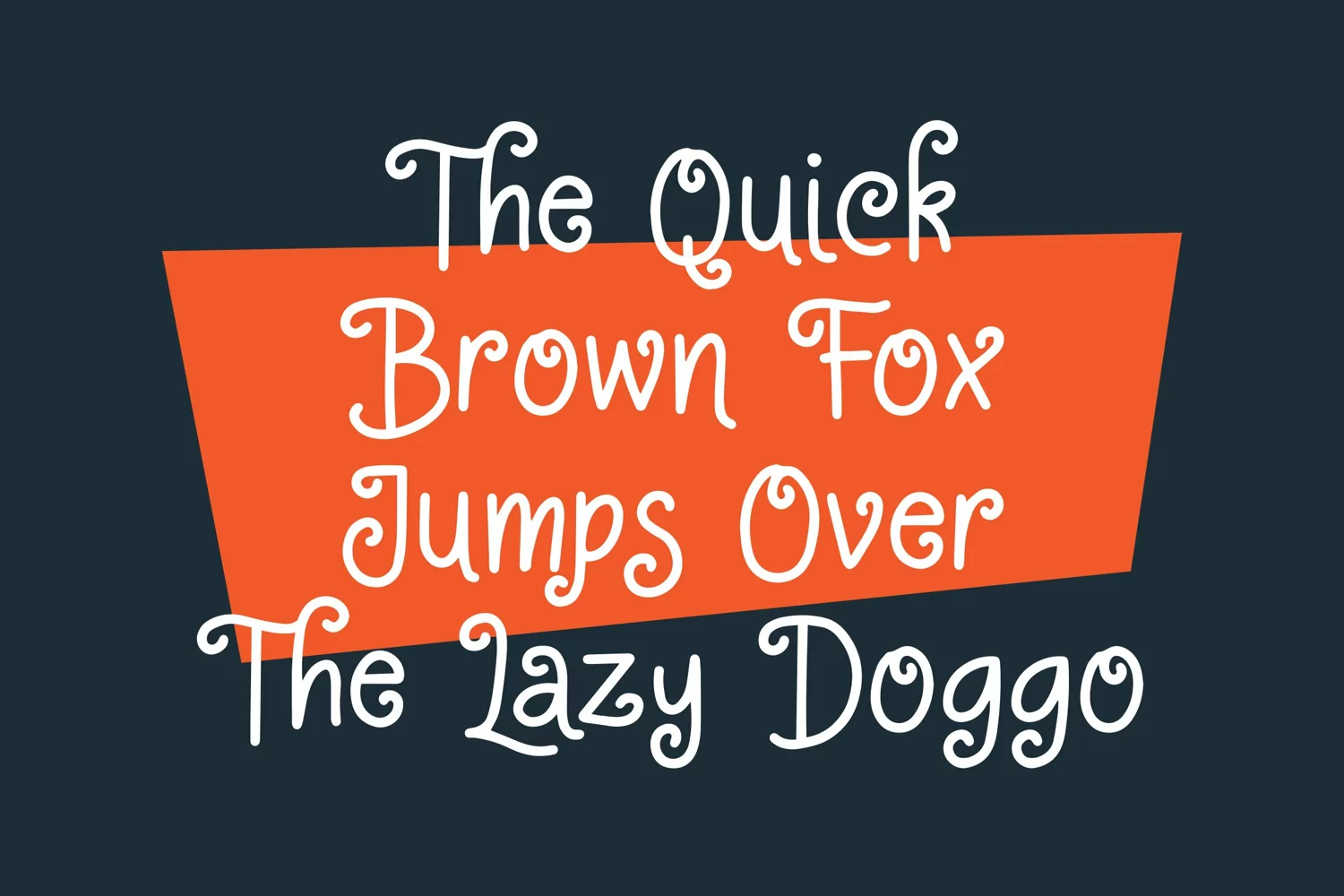
Endeavors - Swirling Font that contain lowercase, uppercase, symbol, and also support multi language. There’s a lot ligatures in this font. This Font also comes with ligatures, alternates and many more. this font suitable for fashion, branding, catalog and other design what you want.
Endeavors